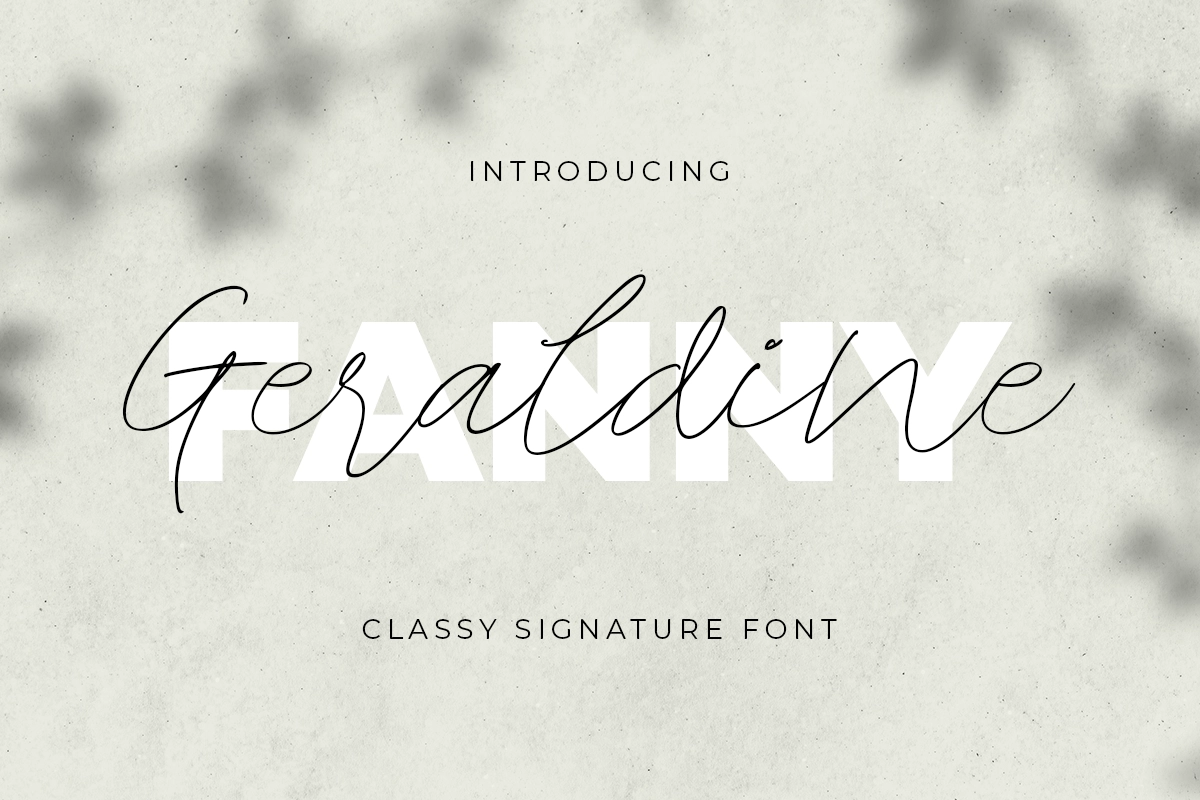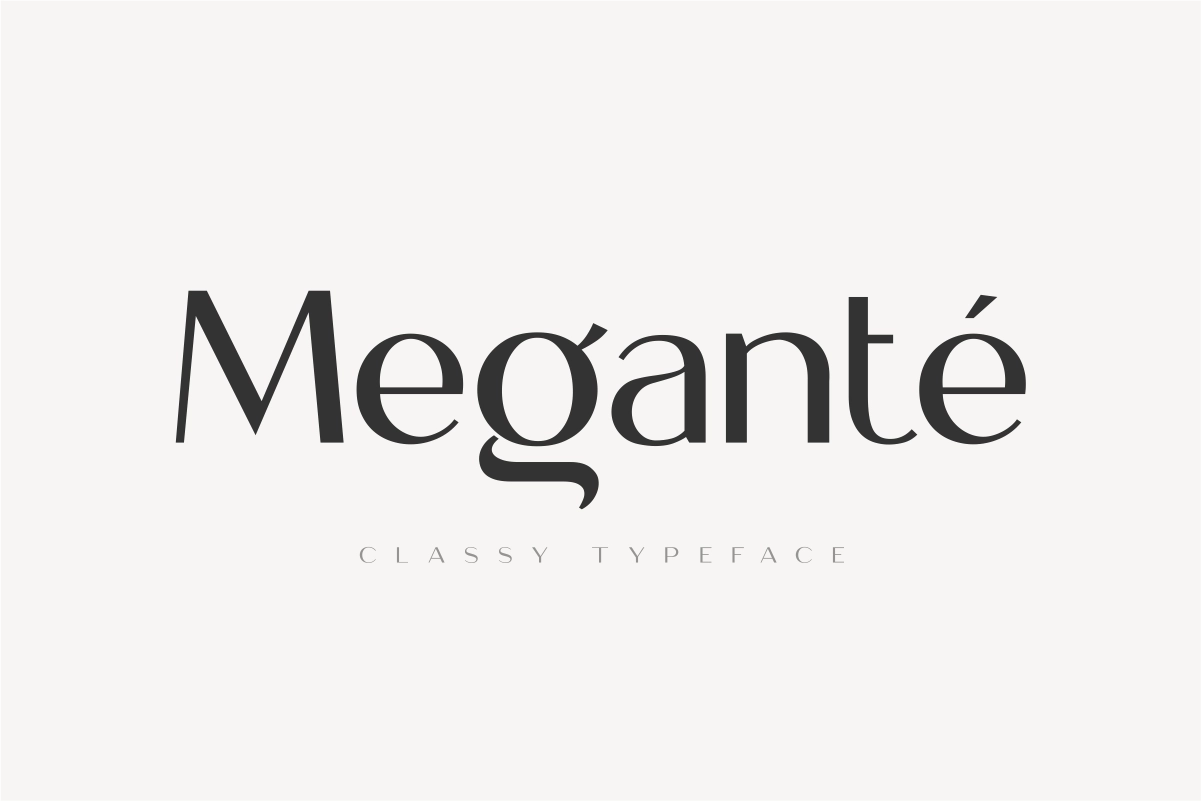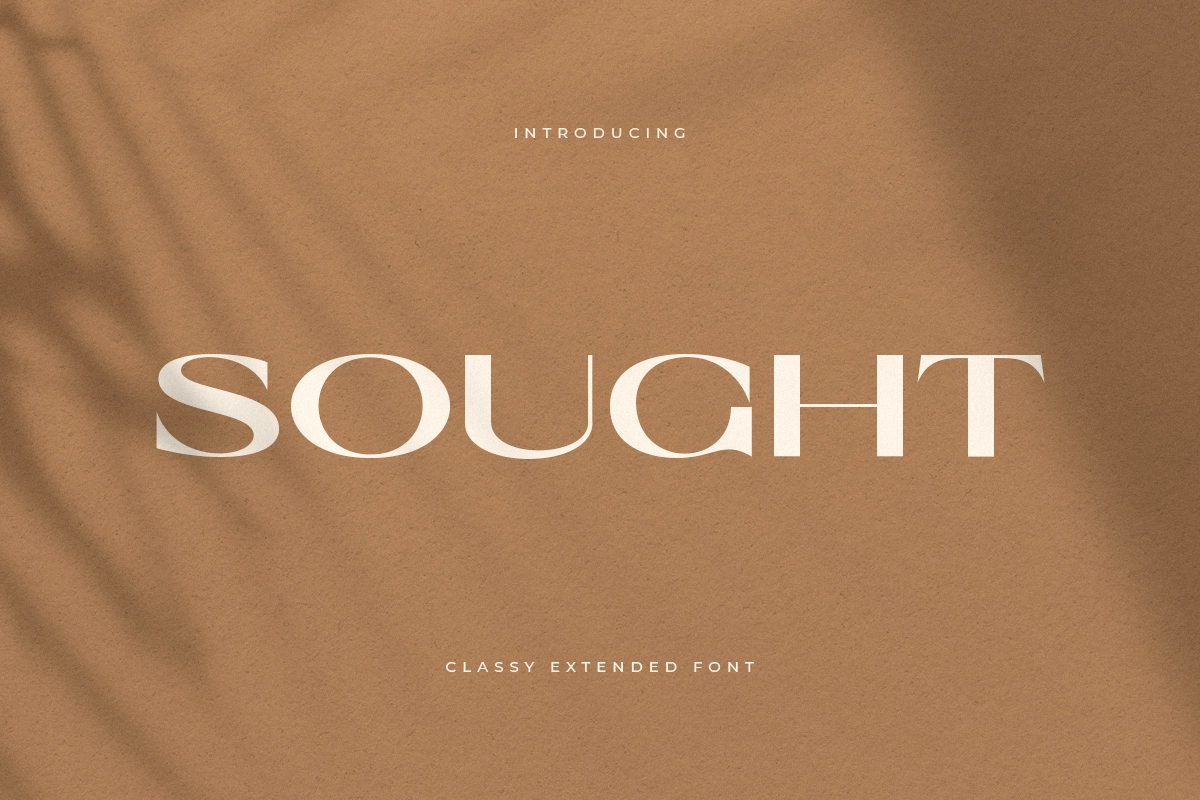
November 2026 Design Ideas, Holidays, and Font Inspiration
November 2026 is a warm and meaningful month for seasonal design, offering valuable opportunities for graphic designers, brand teams, and content creators to create campaigns that balance emotional storytelling with strategic impact. With key moments like All Saints’ Day, Singles’ Day, and Thanksgiving, November presents a versatile creative range, from reflective and human-centered visuals to bold promotional content and gratitude-driven campaigns, making it an ideal time to explore expressive typography, warm color palettes, and visually engaging design approaches that feel both sincere and conversion-focused.
November marks a transition into a more reflective and emotionally warm phase of the year. After the expressive and dramatic tone of October, this month shifts toward gratitude, connection, and preparation for year-end moments. It carries a softer yet purposeful energy, making it ideal for campaigns that feel meaningful, human-centered, and intentional. For brands, creative teams, and content creators, November 2026 is a strong opportunity to create visuals that feel both comforting and impactful. Some of the most relevant design moments to pay attention to are All Saints’ Day on 1 November 2026, Singles’ Day on 11 November 2026, and Thanksgiving on 26 November 2026.
For designers, November offers a warm and balanced visual spectrum. It can feel calm and reflective, but also strategic and conversion-driven. That contrast is what makes it powerful. One campaign can focus on emotional storytelling and appreciation, while another can be highly promotional and bold. If you are building seasonal content, November gives you room to create visuals that feel both sincere and commercially effective.
Why November?
November often works as a preparation phase before the peak of year-end campaigns. It is a time where brands begin to shift from awareness and storytelling into conversion and engagement. This makes it a key moment to refine messaging and create visuals that feel clear, persuasive, and emotionally resonant.
From a design perspective, November supports warm color palettes, clean but expressive typography, and balanced compositions. It works well for gratitude campaigns, promotional content, lifestyle branding, and early holiday visuals. This is a month where design should feel inviting and intentional rather than overwhelming.
For lifestyle, retail, e-commerce, and creative brands, November is especially valuable because it combines emotional tone with strategic goals. There is room to highlight connection, appreciation, and storytelling while also driving action through campaigns like sales and special promotions. Typography plays an important role here, helping to balance readability with personality.
Best Alternative Fonts For November
Sought - Classy Extended Font
Sought is a classy extended font designed to deliver a strong and elegant visual presence. With its wide letterforms and refined structure, this typeface is perfect for headlines, promotional banners, and branding visuals that require both impact and sophistication. It works well for November campaigns that need to feel bold yet polished.
Metara - Modern Geometric Font
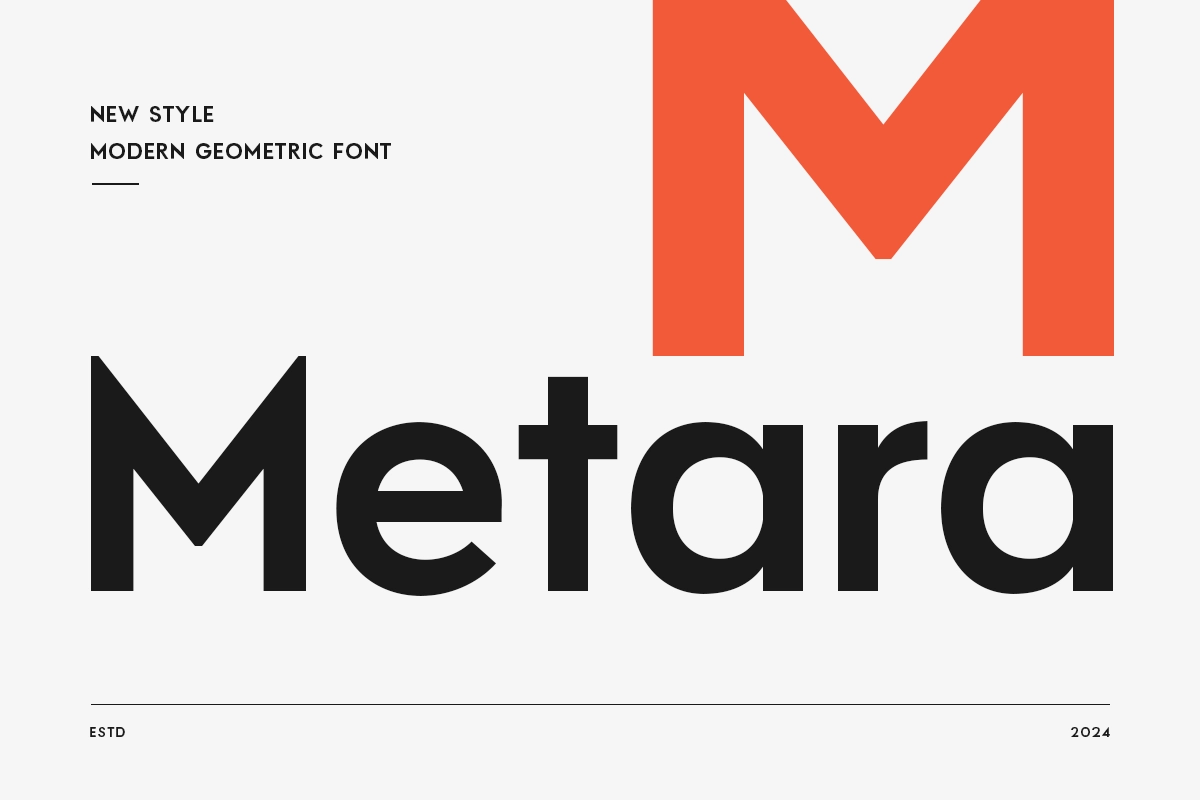
Metara is a modern geometric font crafted to bring clarity, balance, and a contemporary edge into your designs. Its clean and structured form makes it ideal for digital campaigns, product promotions, and layouts that prioritize readability. This typeface aligns well with November’s strategic and conversion-focused visuals.
Geraldine - Classy Signature Font
Geraldine is a classy signature font designed to create a personal and expressive visual tone. With its smooth handwritten flow, this typeface is perfect for gratitude messages, quotes, and lifestyle branding. It adds warmth and authenticity, making it highly suitable for emotionally driven November content.
Brack - Bold Food Vintage Font
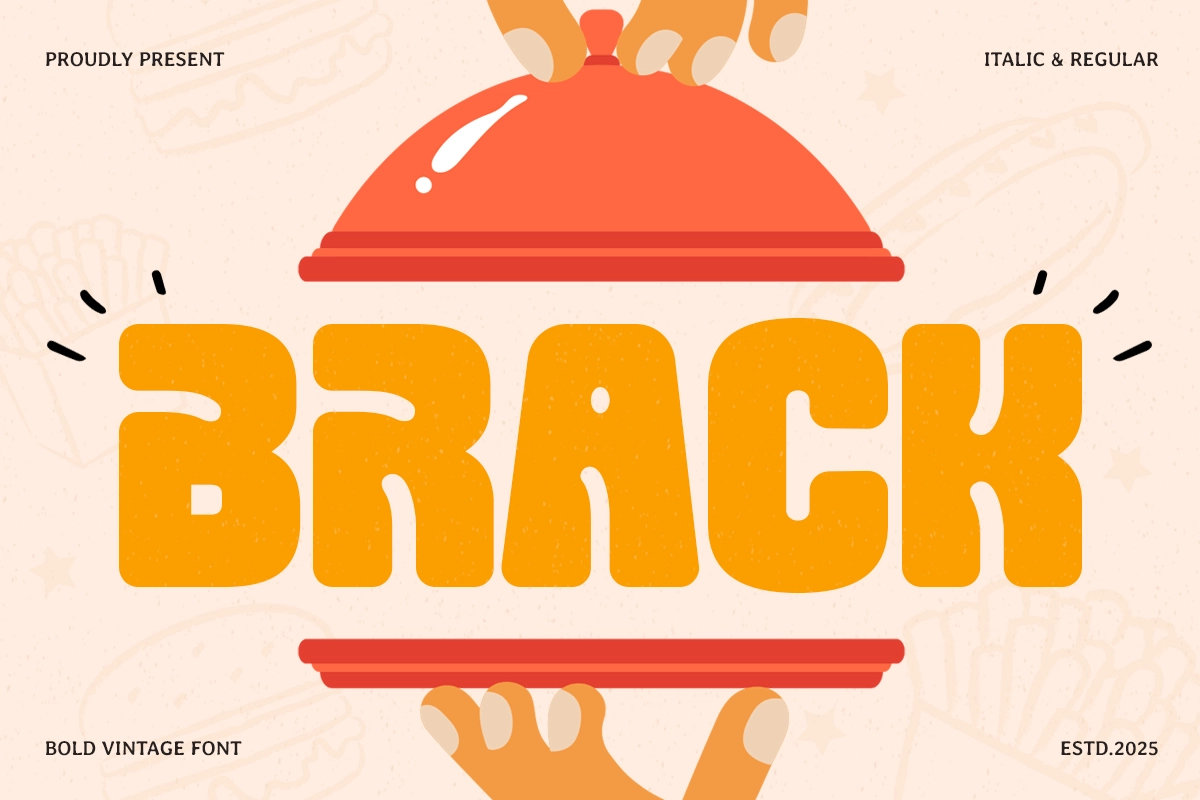
Brack is a bold food vintage font that combines retro charm with strong visual impact. Its distinctive style makes it ideal for food branding, promotional campaigns, and packaging design. This typeface works especially well for November visuals that highlight comfort, tradition, and seasonal offerings.
Renbo - Bold Food Branding Font
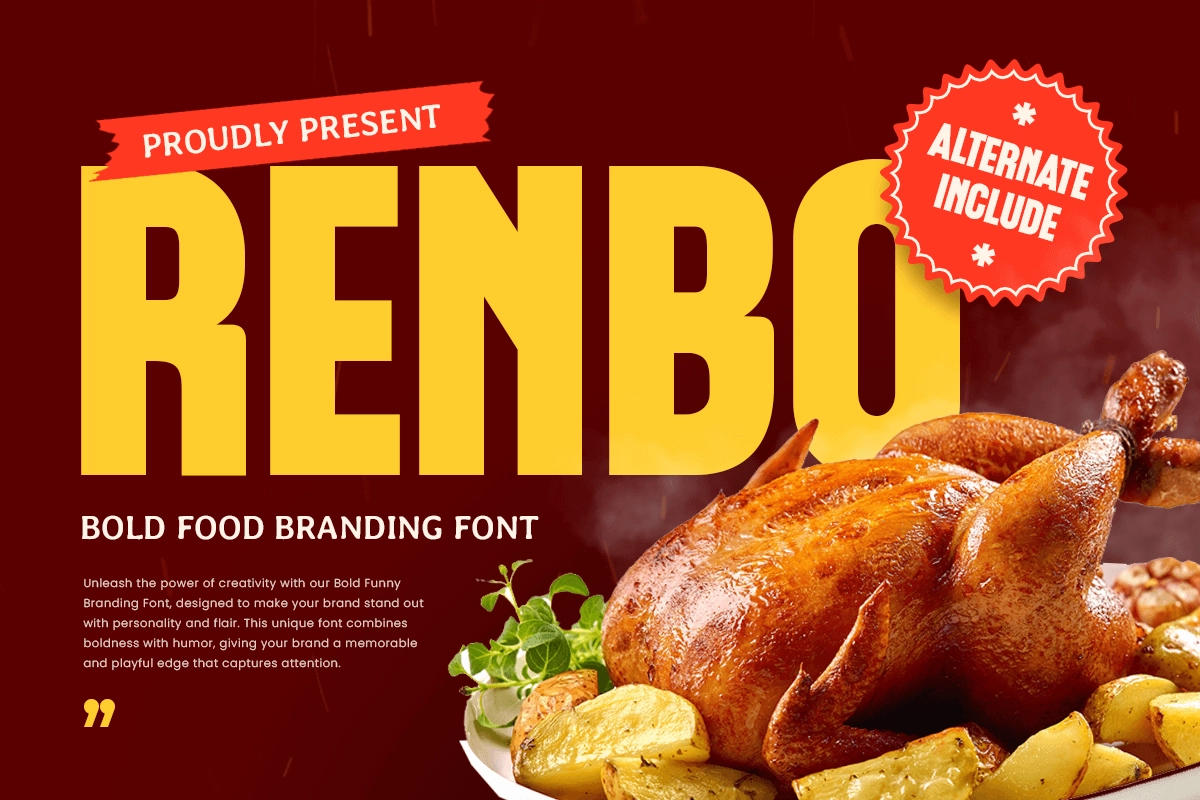
Renbo is a bold food branding font designed to create eye-catching and energetic visuals. With its strong character and clear readability, this typeface is perfect for sales campaigns, product highlights, and digital promotions. It supports high-impact messaging, especially for events like Singles’ Day.
Megante - Classy Font
Megante is a classy font that brings elegance and refinement into modern design. Its stylish and balanced letterforms make it suitable for branding, editorial layouts, and curated social media visuals. This typeface enhances the overall aesthetic while maintaining clarity and professionalism.
Q: What are the best November design themes for 2026?
A: The strongest November design themes for 2026 include reflective and respectful visuals for All Saints’ Day on 1 November 2026, bold and promotional campaigns for Singles’ Day on 11 November 2026, and warm, gratitude-focused content for Thanksgiving on 26 November 2026. These themes balance emotion with strategy.
For designers, that means November is about balance. It is a month where visuals should feel both heartfelt and effective. If you approach it with intentional typography, warm color direction, and clear messaging, it can become one of the most impactful and results-driven moments in the design calendar.